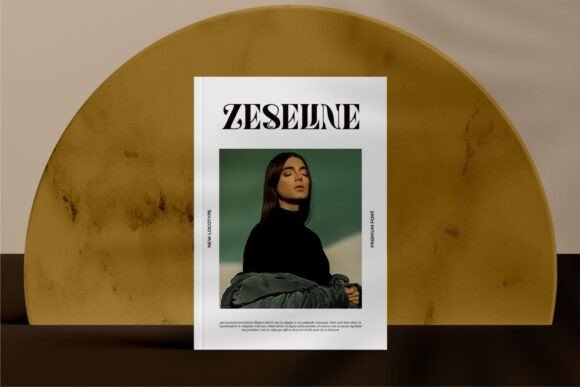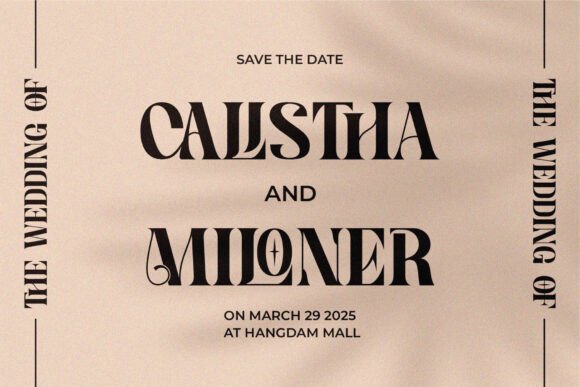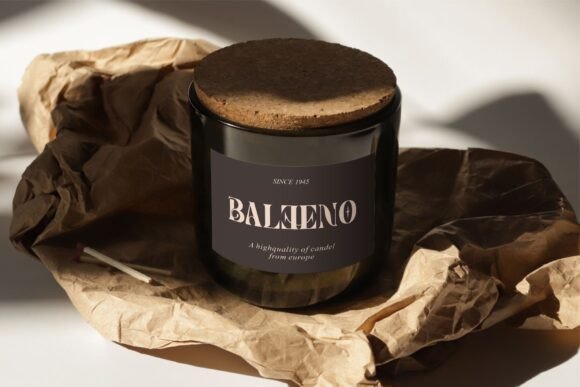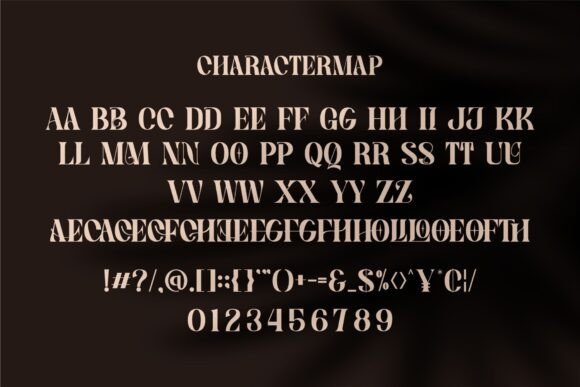
Introducing Celona Cameli: The Modern Serif Font that’s Taking Design by Storm
Are you tired of using the same old fonts for your designs? Look no further! Celona Cameli is here to revolutionize the way you approach typography. This modern serif font is not only trendy and bouncy but also cute and playful, making it perfect for a wide range of design projects.
What Sets Celona Cameli Apart?
So, what makes Celona Cameli stand out from the rest? For starters, its unique character is inspired by a wood theme, giving it a natural and earthy feel. The font’s modern serif design ensures that it remains fresh and contemporary, while its bouncy and cute personality adds a touch of whimsy to any design.
Whether you’re a designer, crafters, or DIY enthusiast, Celona Cameli is the perfect font for your next project. Here are just a few ideas to get you started:
• Invitation Card Designs: Add a touch of elegance and sophistication to your invitation cards with Celona Cameli.
• Company Logos: Create a lasting impression with a custom logo that incorporates Celona Cameli’s unique character.
• Movie Titles and Names: Give your movie titles and names a modern and trendy twist with Celona Cameli.
• Business Cards: Stand out from the crowd with business cards that feature Celona Cameli’s bold and playful design.
• Book Titles: Add a touch of whimsy to your book titles with Celona Cameli’s cute and modern serif design.
• Brand Names: Create a memorable brand identity with Celona Cameli’s unique and eye-catching font.
Why Choose Celona Cameli?
So, why should you choose Celona Cameli for your next design project? Here are just a few reasons:
• Unique Character: Celona Cameli’s wood theme inspiration gives it a one-of-a-kind character that’s sure to set your designs apart.
• Versatility: Whether you’re working on a formal or informal design project, Celona Cameli’s modern serif design ensures that it will fit right in.
• Easy to Read: Despite its playful and whimsical personality, Celona Cameli remains easy to read, making it perfect for body text and headlines.
• Customizable: With Celona Cameli, you can experiment with different colors, textures, and styles to create a truly unique design.
Tips for Using Celona Cameli
To get the most out of Celona Cameli, here are a few tips to keep in mind:
• Experiment with Colors: Try pairing Celona Cameli with different colors and textures to create a truly unique design.
• Play with Sizes: Experiment with different font sizes to create visual interest and hierarchy in your designs.
• Mix and Match: Don’t be afraid to mix and match Celona Cameli with other fonts to create a truly custom look.
In conclusion, Celona Cameli is a modern serif font that’s taking design by storm. With its unique character, trendy design, and versatility, it’s perfect for a wide range of design projects. Whether you’re a designer, crafters, or DIY enthusiast, Celona Cameli is sure to become a favorite in your font collection.